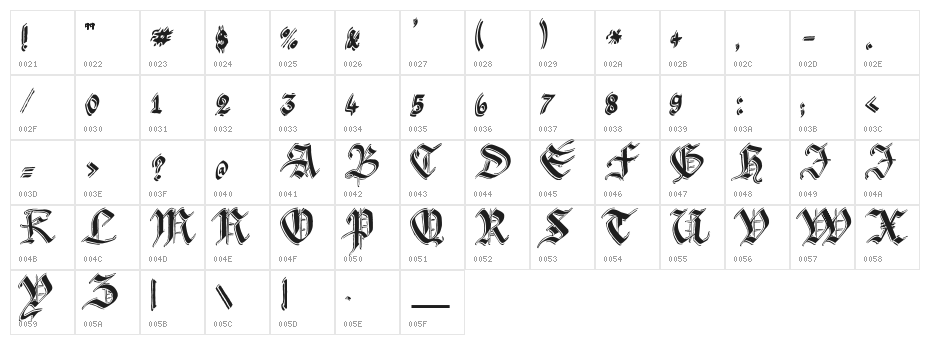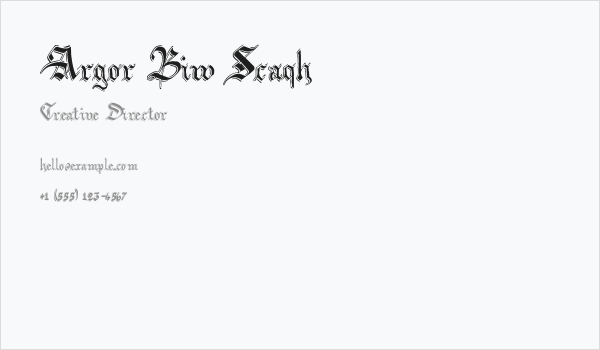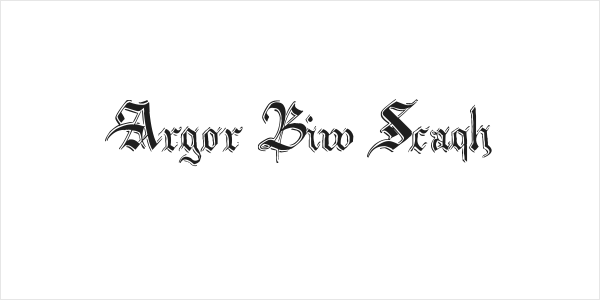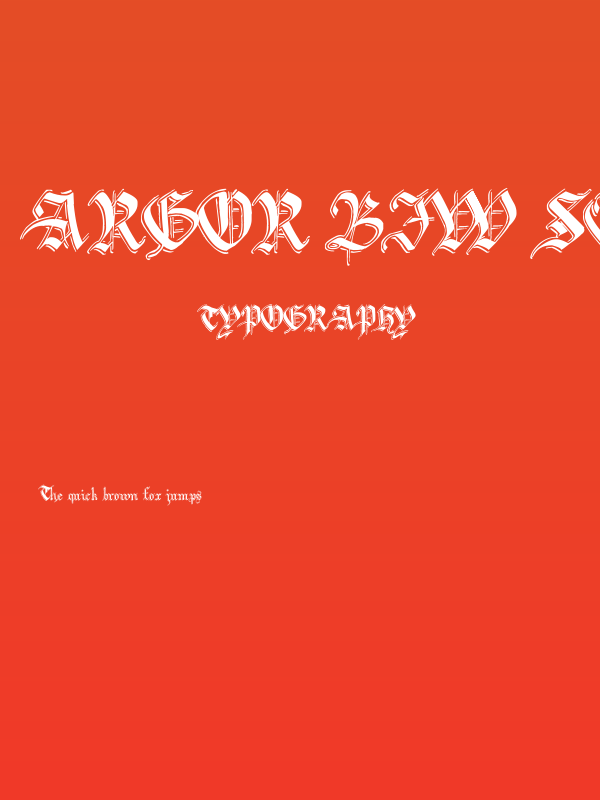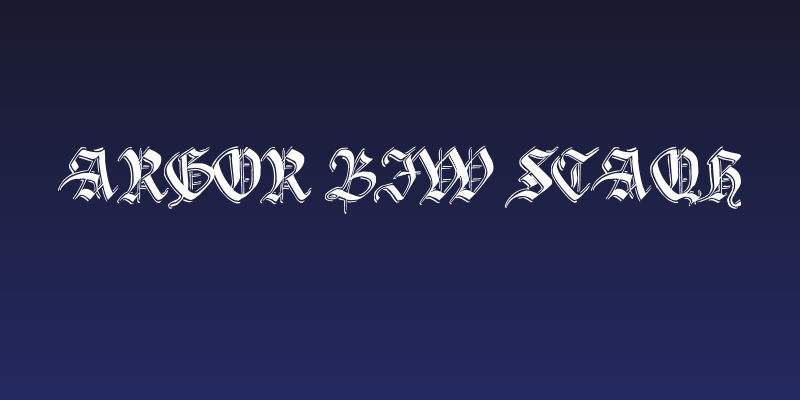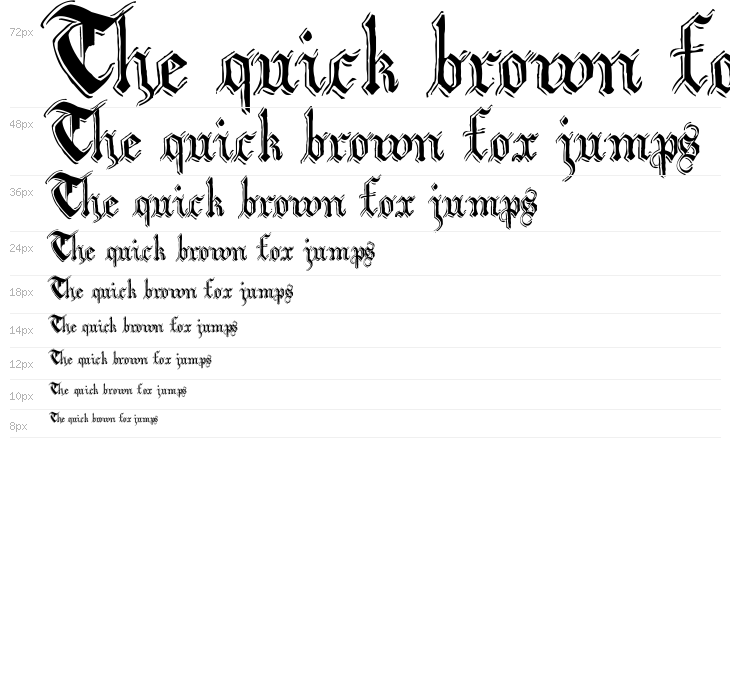
Argor Biw Scaqh Font
Argor Biw Scaqh Description
This font exhibits a classic blackletter style, characterized by its intricate and ornate design. The letters are bold and angular, with sharp serifs and elaborate flourishes that give it a medieval appearance. The uppercase letters are particularly decorative, featuring dramatic strokes and pointed edges. The lowercase letters maintain the same level of detail, with a consistent weight throughout. Numbers and special characters are equally stylized, ensuring a cohesive look across all glyphs. The overall aesthetic is reminiscent of traditional Gothic script, making it suitable for projects that require a historical or formal touch.